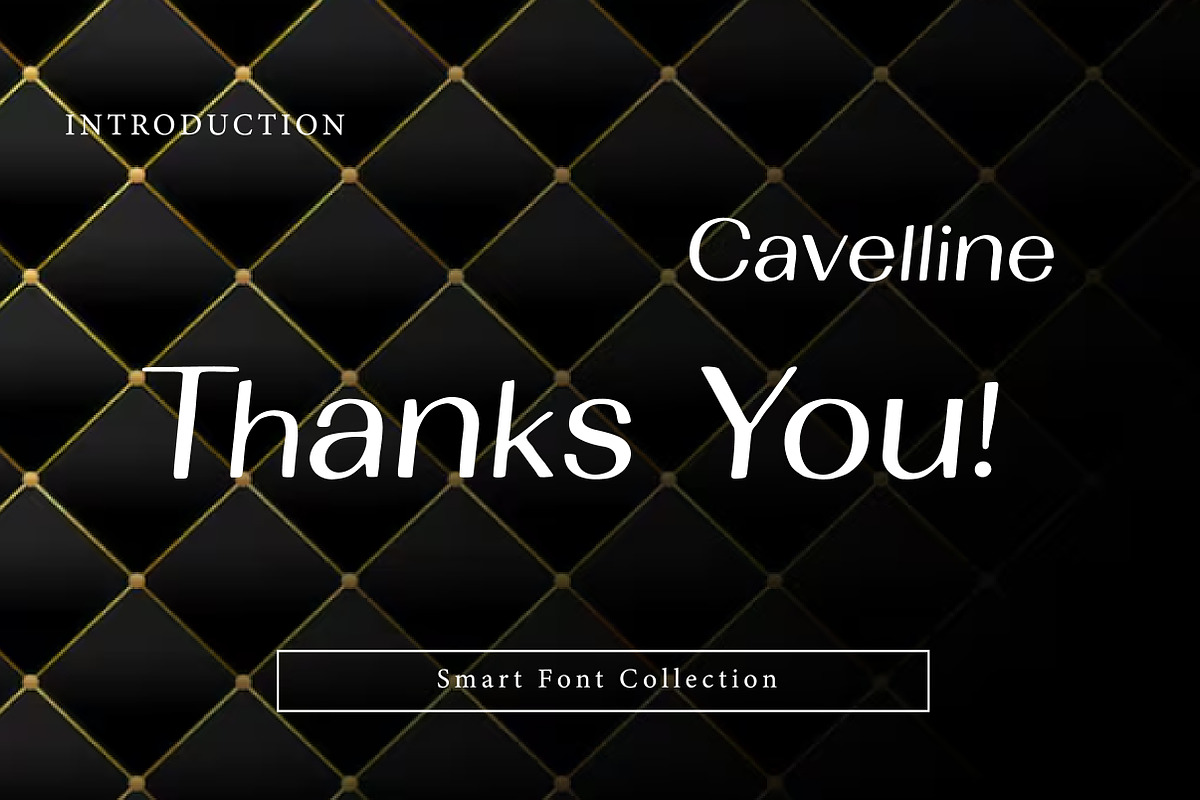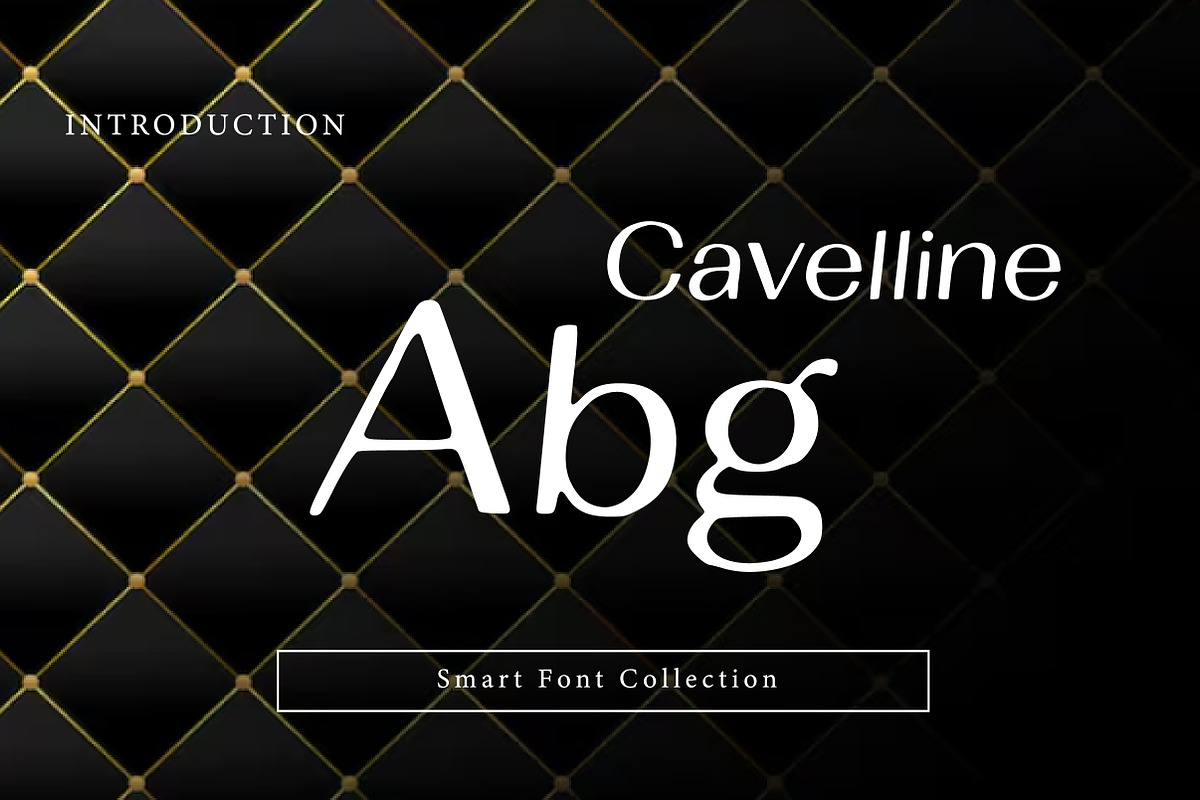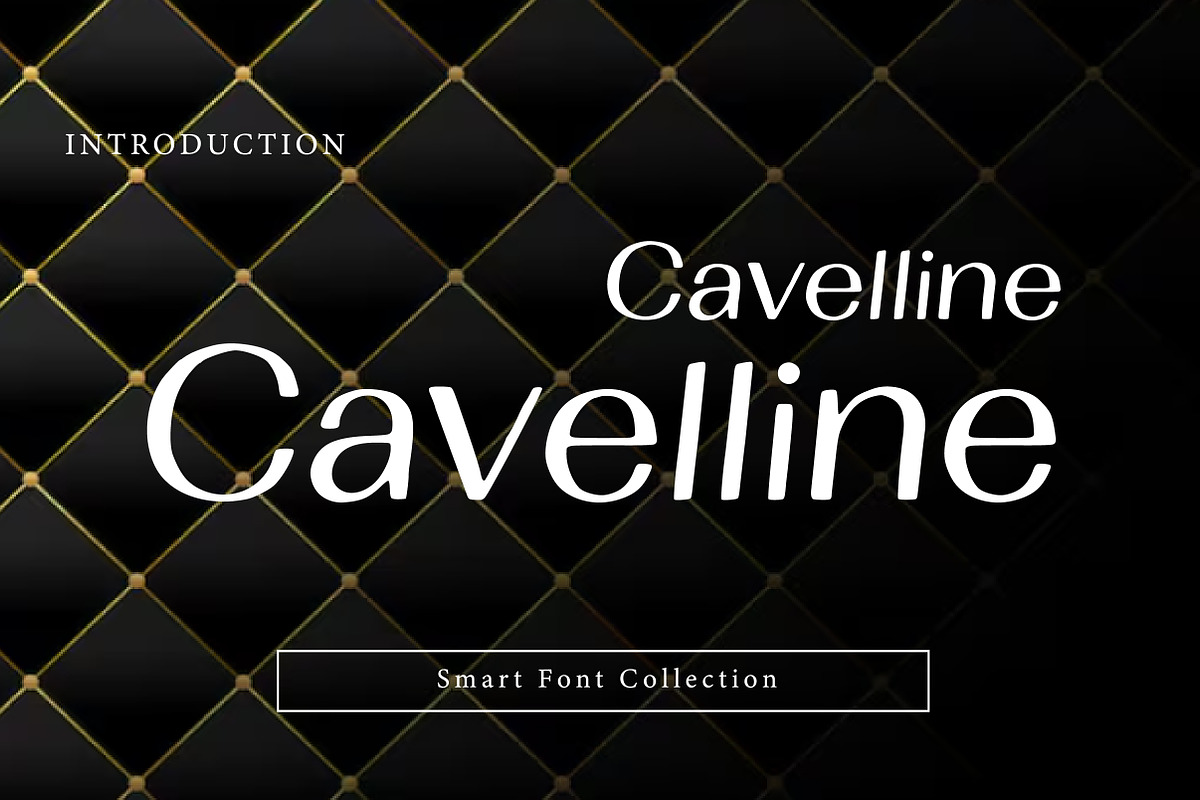
Cavelline
Cavelline is a refined and elegant serif typeface designed to bring timeless beauty and premium sophistication to your typography. Inspired by classic editorial and luxury serif styles, this font features graceful letterforms, balanced proportions, and a clean high-end aesthetic—perfect for projects that demand professionalism and elegance.
With its smooth curves and stylish contrast, Cavelline works beautifully for both modern and traditional design needs. It is an excellent choice for luxury branding, fashion logos, wedding invitations, magazine titles, book covers, and high-end packaging. The classic serif structure ensures readability, while the elegant details add a distinctive character that makes your designs look upscale and polished.
Whether you’re creating a minimalist logo, elegant headline typography, or a premium brand identity, Cavelline adds a strong sense of class and sophistication. This font is versatile and works perfectly in both print and digital designs, making it a great option for designers, creators, and brands looking for a timeless serif typeface.